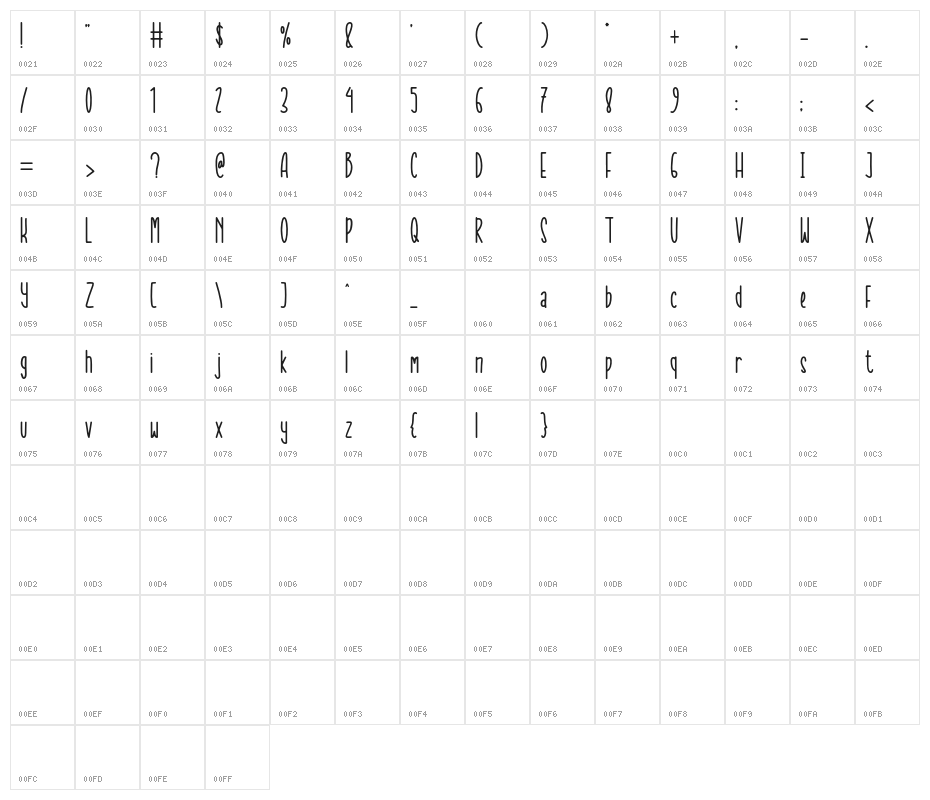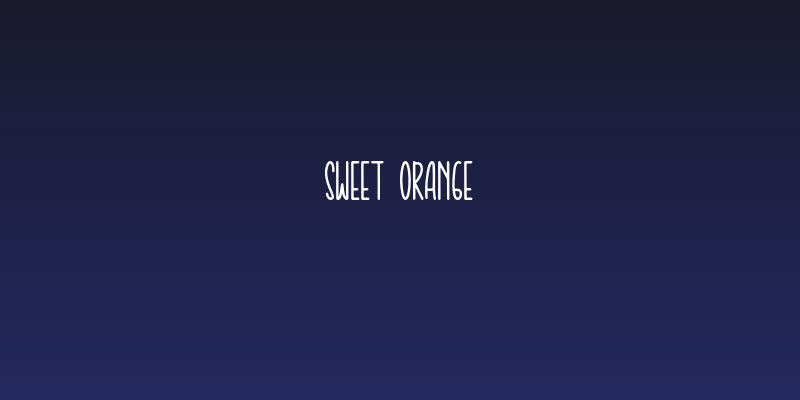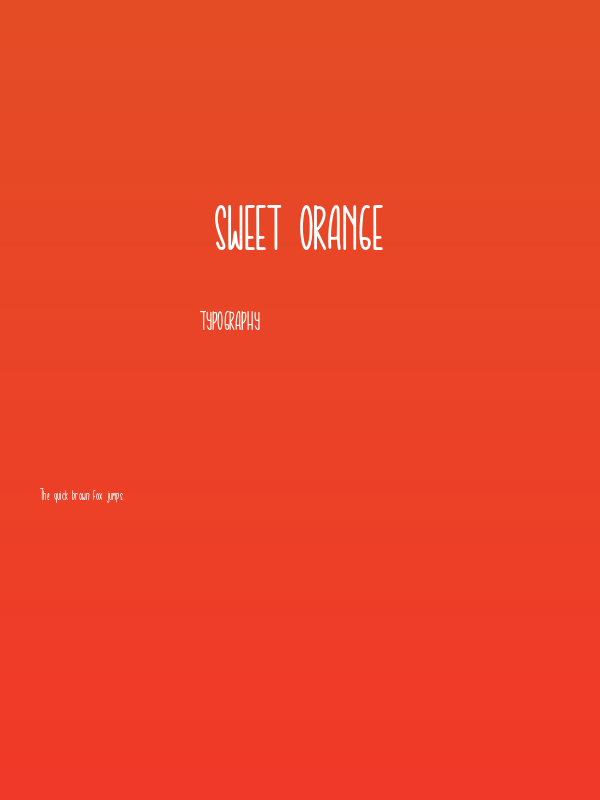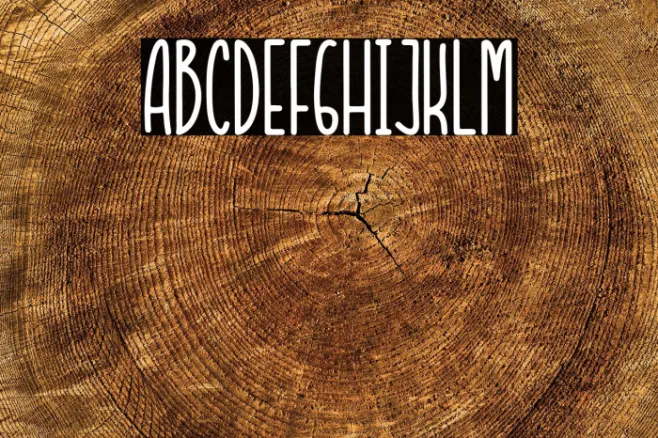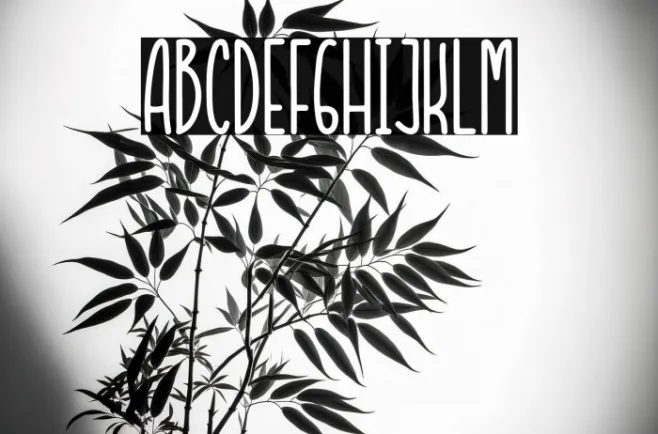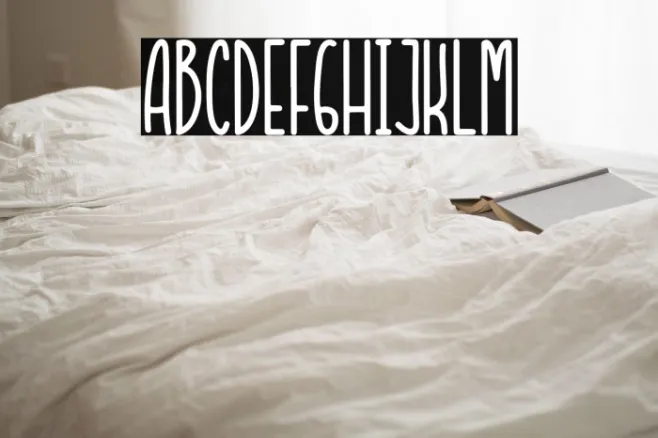
Sweet Orange Font
Sweet Orange Description
This font features a playful and whimsical design, characterized by its tall, narrow letters with rounded edges. The strokes are consistent in width, giving it a uniform appearance. The uppercase and lowercase letters maintain a cohesive style, with a slight slant that adds a dynamic feel. The numerals and special characters are crafted to match the overall aesthetic, making it versatile for various applications. Its casual and friendly look makes it suitable for projects that aim to convey a sense of fun and approachability.
| Proposed Projects | Ideal for children's books, playful branding, greeting cards, and social media graphics. |